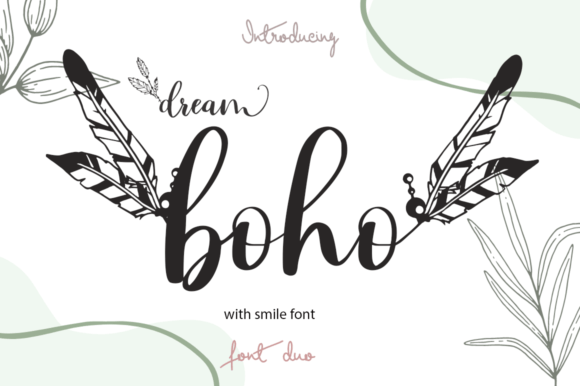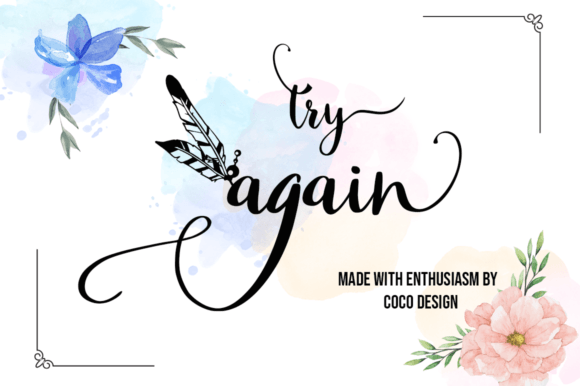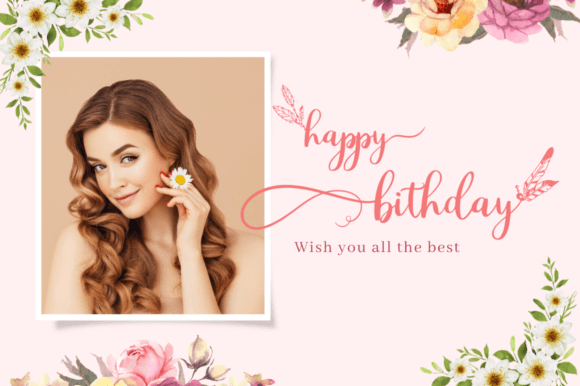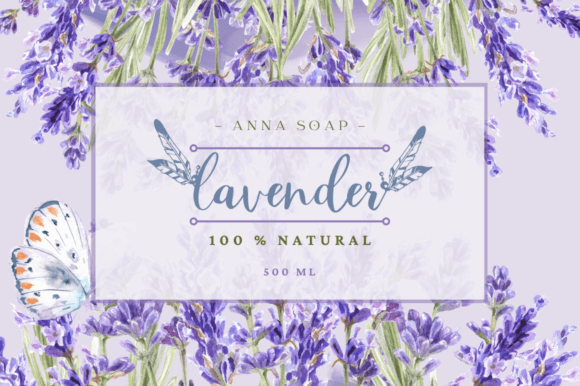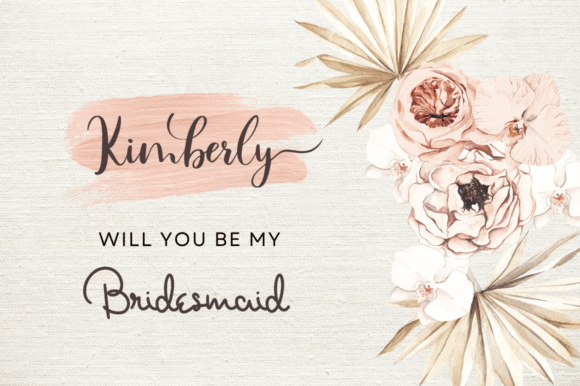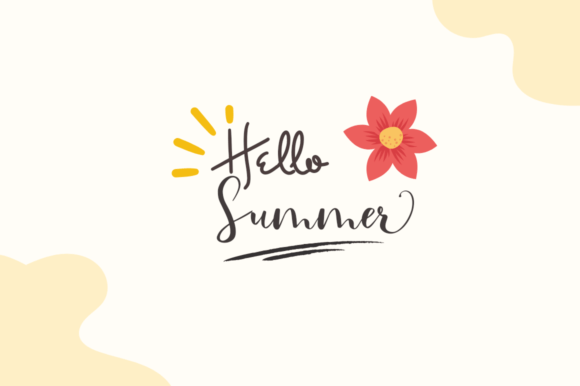
Dream Boho Font: Elevate Your Designs with a Modern Calligraphy and Decorative Font Duo
Are you a designer or crafter looking for a unique and stylish font to elevate your creative projects? Look no further than the Dream Boho Font, a modern calligraphy and decorative font duo that exudes a casual, bohemian vibe. With its beautiful swashes and elegant lettering, this font duo is perfect for a wide range of applications, from logos and product packaging to wedding invitations and branding.
What is Dream Boho Font?
Dream Boho Font is a carefully crafted font duo that combines the elegance of calligraphy with the playfulness of decorative lettering. The font features a casual, handwritten style with beautiful swashes and flourishes, making it perfect for adding a touch of personality to your designs. Whether you’re creating a logo, designing a wedding invitation, or crafting a brand identity, Dream Boho Font is the perfect choice.
Key Features of Dream Boho Font
- Modern Calligraphy and Decorative Font Duo: Dream Boho Font features two complementary fonts that can be used together to create stunning designs.
- Beautiful Swashes: The font includes a range of beautiful swashes and flourishes that can be used to add a touch of elegance to your designs.
- Casual Vibe: Dream Boho Font has a relaxed, bohemian vibe that’s perfect for creating designs that feel laid-back and effortless.
- Versatile: The font can be used for a wide range of applications, from logos and product packaging to wedding invitations and branding.
Uses for Dream Boho Font
Dream Boho Font is a versatile font duo that can be used for a wide range of creative projects, including:
- Logos: Create a unique and memorable logo for your business or brand with Dream Boho Font.
- Product Packaging: Add a touch of elegance to your product packaging with this beautiful font duo.
- Wedding Invitations: Create stunning wedding invitations that set the tone for a beautiful and memorable celebration.
- Branding: Use Dream Boho Font to create a consistent brand identity that reflects your values and personality.
- Headlines: Add a touch of drama and flair to your headlines with this decorative font.
- Signage: Create eye-catching signage that grabs attention and communicates your message.
- Labels: Use Dream Boho Font to create beautiful labels that add a touch of personality to your products.
- Signatures: Add a touch of elegance to your email signatures or business cards with this beautiful font duo.
- Book Covers: Create stunning book covers that capture the essence of your story.
- Posters: Design eye-catching posters that communicate your message and grab attention.
- Quotes: Add a touch of inspiration and motivation to your quotes with this beautiful font duo.
Why Choose Dream Boho Font?
So why choose Dream Boho Font for your creative projects? Here are just a few reasons:
- Unique and Stylish: Dream Boho Font is a unique and stylish font duo that will help your designs stand out from the crowd.
- Elegant and Sophisticated: The font features elegant lettering and beautiful swashes that add a touch of sophistication to your designs.
- Versatile: Dream Boho Font can be used for a wide range of applications, making it a great addition to your font library.
- Easy to Use: The font is easy to use and comes with a range of features that make it simple to customize and edit.
In conclusion, Dream Boho Font is a modern calligraphy and decorative font duo that’s perfect for designers and crafters looking to elevate their creative projects. With its beautiful swashes, elegant lettering, and casual vibe, this font duo is versatile and can be used for a wide range of applications. Whether you’re creating a logo, designing a wedding invitation, or crafting a brand identity, Dream Boho Font is the perfect choice.